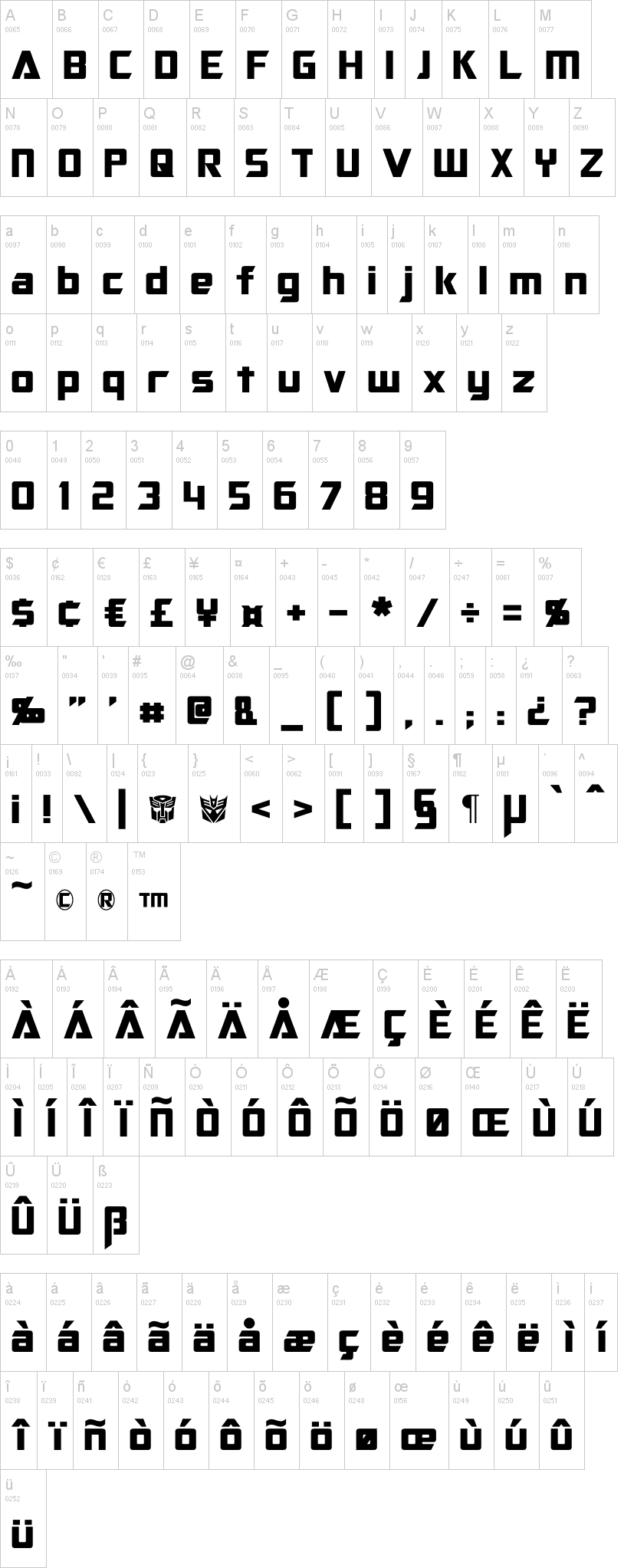
Optimus
Optimus à  de Pixel Sagas
A thick, bold font based on the original Transformers logo from Hasbro, Inc. Includes full alphabet and punctuation, extended character set, and euro. Left and right braces replaced with Autobot and Decepticon symbols, respectively. Includes hollow and italic versions.